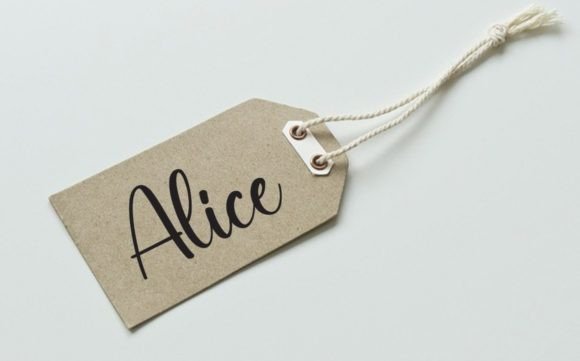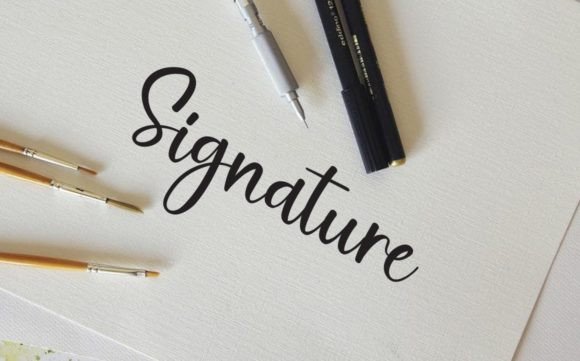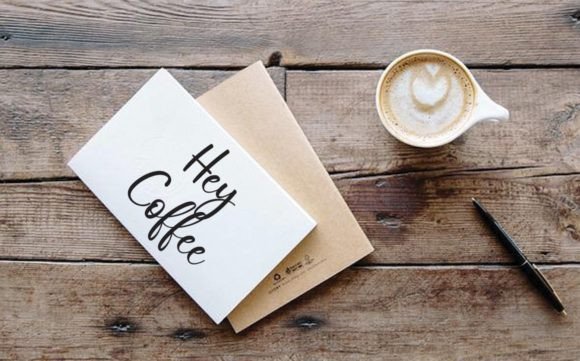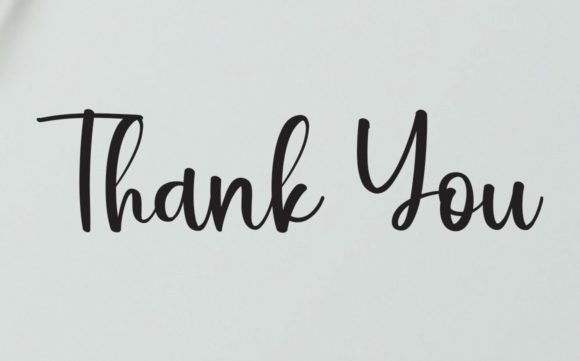
The Sweet Spot: Discovering Hey Beach Font
I’ll never forget the time I was working on a Valentine’s Day project for a client, and I just couldn’t find the right font to convey the sweetness and romance I was going for. I scrolled through page after page of Google Fonts, tried out a dozen or so paid fonts, but nothing seemed quite right. That was until I stumbled upon Hey Beach, a delightful and sweet handwritten font that instantly captured the feel I was looking for.
First Impressions: A Love at First Sight
Hey Beach is a versatile font that has a wide spectrum of applications, ranging from greeting cards or Valentine’s Day cards to headlines. It’s guaranteed to add a romantic feel to your next project! With its whimsical and charming vibe, it’s perfect for designers, crafters, and creative hobbyists looking to add a touch of personality to their work.
- ✨ The font’s unique and beautiful handwriting style, which adds a personal touch to any project
- ✅ Its versatility – it can be used for both digital and print projects
- 💕 The romantic and whimsical feel it evokes, perfect for Valentine’s Day or anniversary projects
- 🎉 The font’s excellent readability, even at smaller sizes
While Hey Beach is an amazing font, there are a few things to keep in mind:
- 🤔 The font may not be suitable for very formal or professional projects, as it has a distinctly casual and playful feel
- ⚠️ Some letters may appear a bit irregular or imperfect, which can be a deliberate design choice but might not appeal to everyone
One of the best things about Hey Beach is its support for OpenType features and glyphs. These allow you to customize the font even further, adding swashes, alternates, and other special characters to your text.
The Story Behind Hey Beach
According to its designer, Hey Beach was inspired by the carefree, laid-back vibe of a beach vacation. With its whimsical and charming handwriting style, it’s the perfect font for anyone looking to add a touch of personality to their projects.